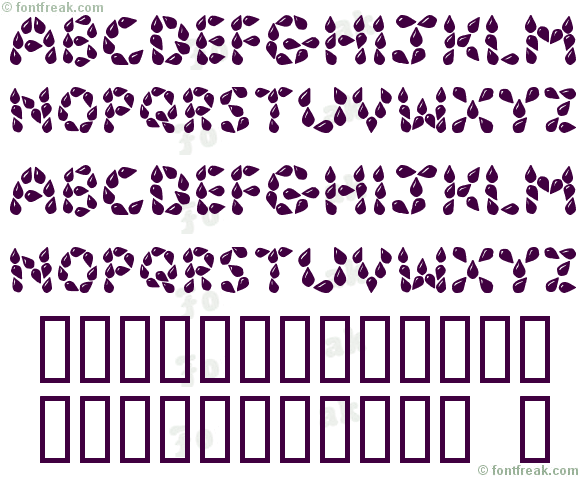
JI Seeds
About JI Seeds
JI Seeds is a unique display font designed by Jeri Ingalls in 2000, characterized by its playful, organic shapes that resemble seeds or droplets. This font falls into the decorative category, making it an excellent choice for designs that seek to evoke a sense of nature and whimsy. The visual style features a consistent stroke weight that maintains a balanced appearance, while the rounded forms create a friendly and approachable aesthetic. The spacing between the letters is thoughtfully crafted, ensuring clarity and legibility even in larger text formats.
The JI Seeds font is ideal for various creative applications. It shines in wedding invitations, bringing a charming and rustic feel to the special occasion. Additionally, it can be used effectively in children’s book covers or educational materials, appealing to young audiences with its soft, friendly design. Restaurant menus can also benefit from this font, particularly for establishments focusing on organic or farm-to-table themes, where the seed-like appearance enhances the overall branding. Furthermore, graphic designers will find this font suitable for crafting unique logos and branding materials that require an element of creativity and fun.
What sets the JI Seeds font apart is its ability to blend playfulness with elegance, making it versatile enough for both casual and formal applications. With its unique visual characteristics and approachable style, the JI Seeds font free download is a perfect addition to any designer's toolkit.